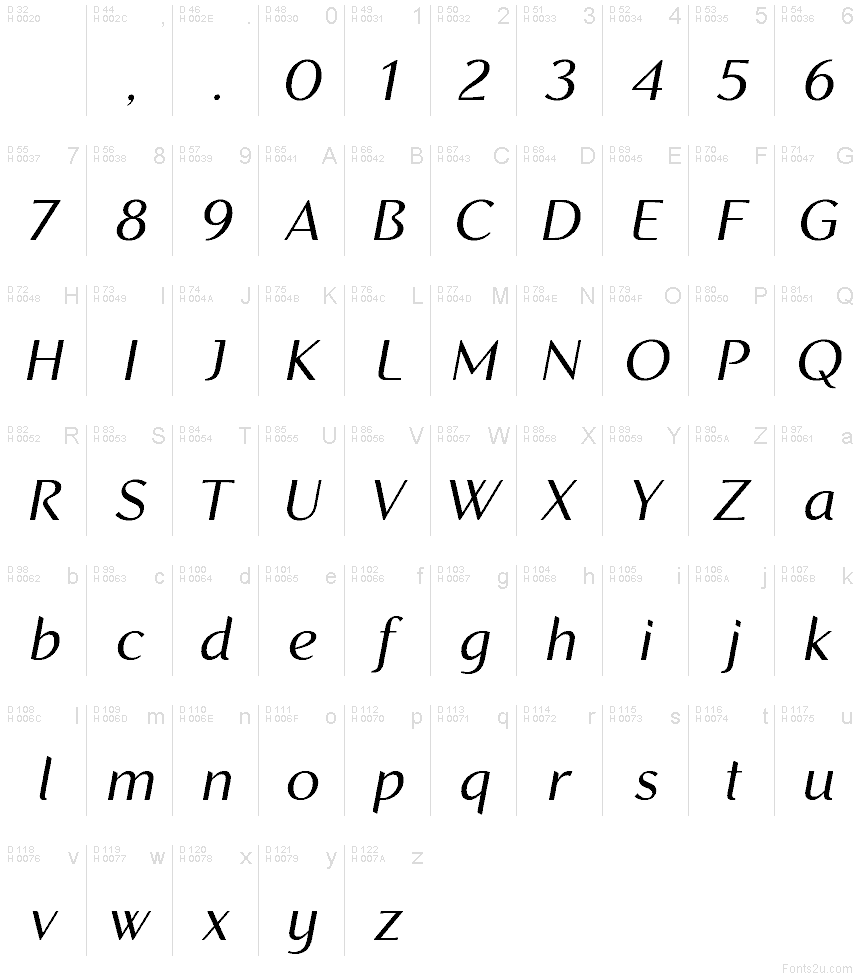
Recline Italic
Recline Italic font by Digitype Studio is a free italic sans serif typeface. Its defining move is a confident forward lean with supple curves and crisp cuts, giving you the speed of a script without the fuss and the clarity of a sans without the stiffness. Letters feel taut and aerodynamic, so short words snap to attention and longer lines flow with an easy rhythm.
Using Recline Italic, headlines and product names gain a sleek, fashion‑grade sheen. It shines on boutique logos, packaging, magazine pull quotes, posters, and bold social posts, and even adds motion to event titles. For balance, pair it with the upright cut from the Recline family or a neutral grotesk at smaller sizes—this free font handles the spotlight.
Recline comes in 10 weights, 5 straight & angled.